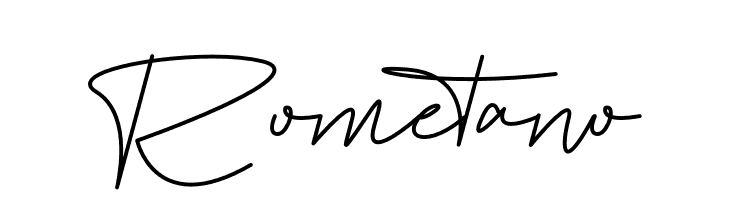
A modern, elegant handwritten font with fluid, continuous strokes.
Elegant cursive script with a handwritten feel.
A flowing, cursive font with an elegant and sophisticated style.
A dynamic and elegant script font with fluid, cursive strokes.